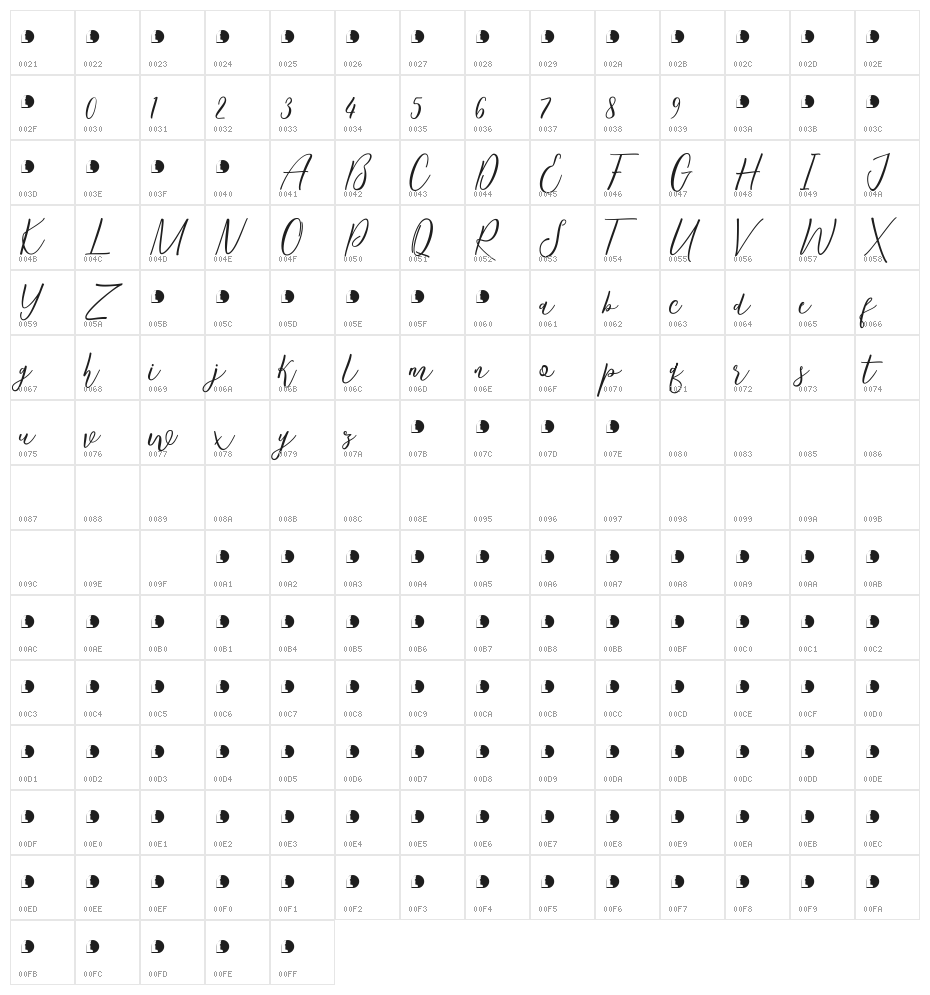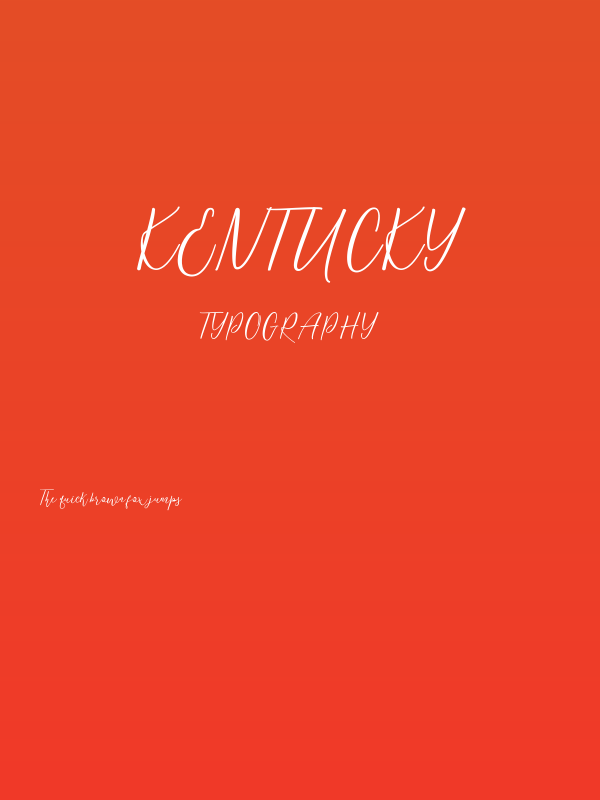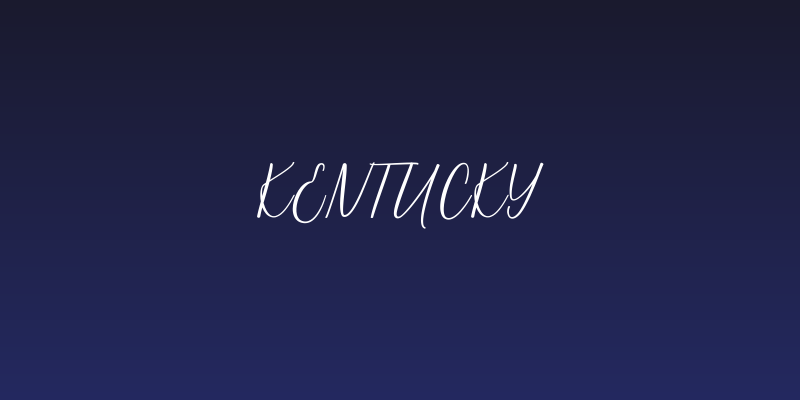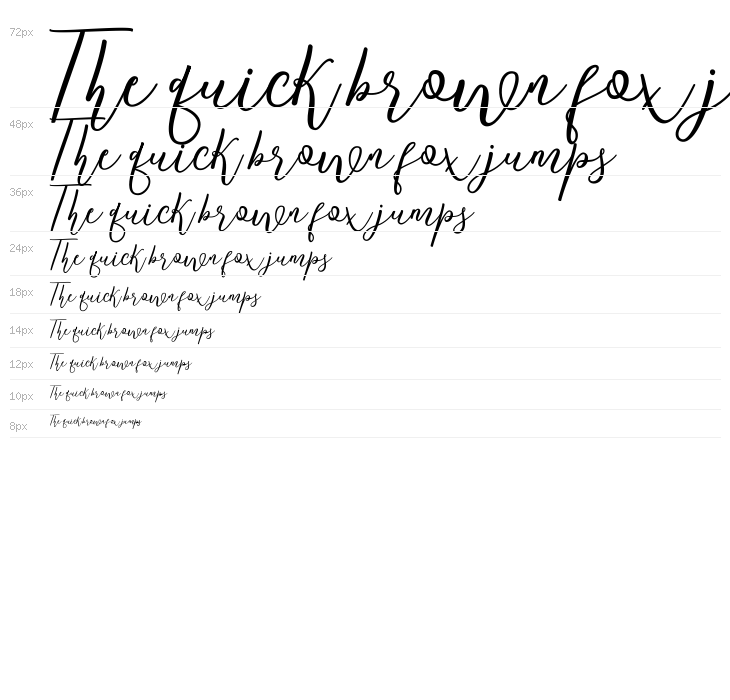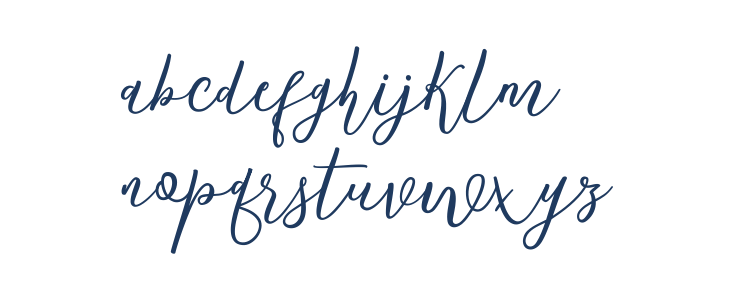
Kentucky Font
Kentucky Description
This font features a stylish and elegant script design, characterized by its fluid and connected strokes. The uppercase letters are tall and slender, with a slight slant that adds a dynamic feel. The lowercase letters are more rounded and feature graceful loops and curves, creating a harmonious flow. The numerals are consistent with the overall style, maintaining the same elegant and flowing characteristics. The special characters are seamlessly integrated, ensuring a cohesive look across all text. This font's design is both sophisticated and approachable, making it suitable for a variety of uses.
| Proposed Projects | Ideal for wedding invitations, elegant branding, personal stationery, and decorative signage. |